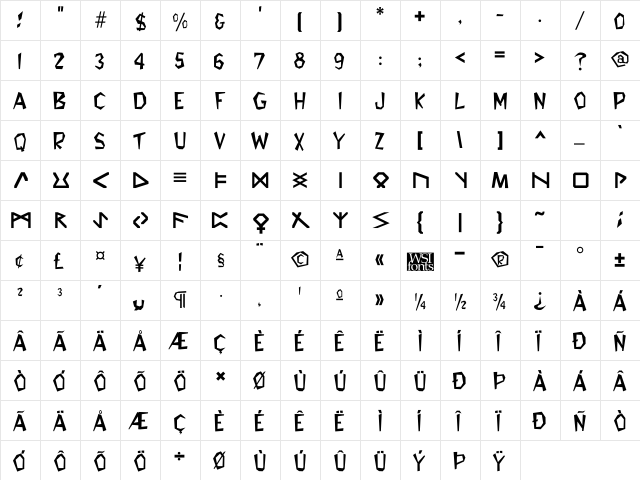
Glyphics Regular
Design Context for Glyphics Typeface
Glyphics is a composed and adaptable typeface that performs quietly and consistently across a wide range of design contexts.